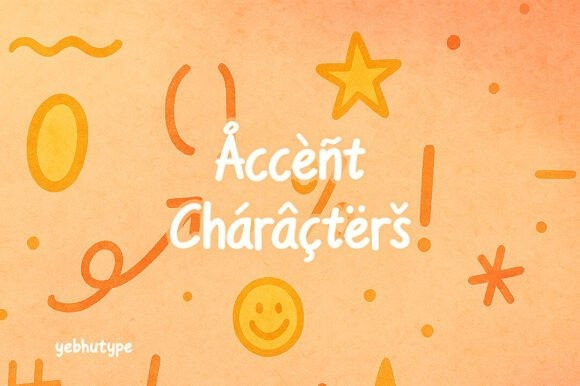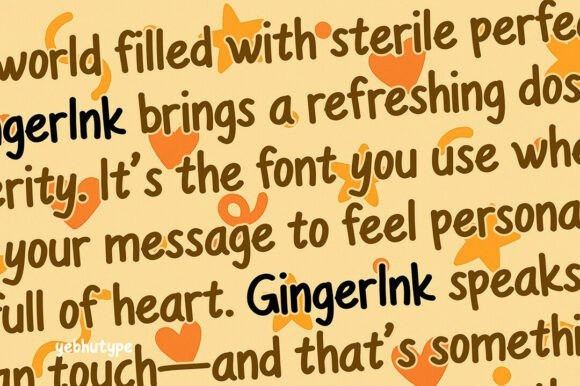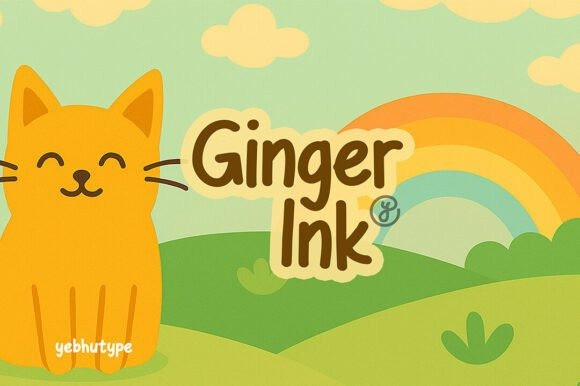
GingerInk Font
GingerInk Font, a charming handwritten typeface that radiates friendliness, fun, and a personal touch. With bold yet soft strokes and a casual flow, GingerInk captures the essence of handwritten notes, doodled ideas, and heartfelt creativity. It’s more than a font—it’s a warm, joyful presence in every design.